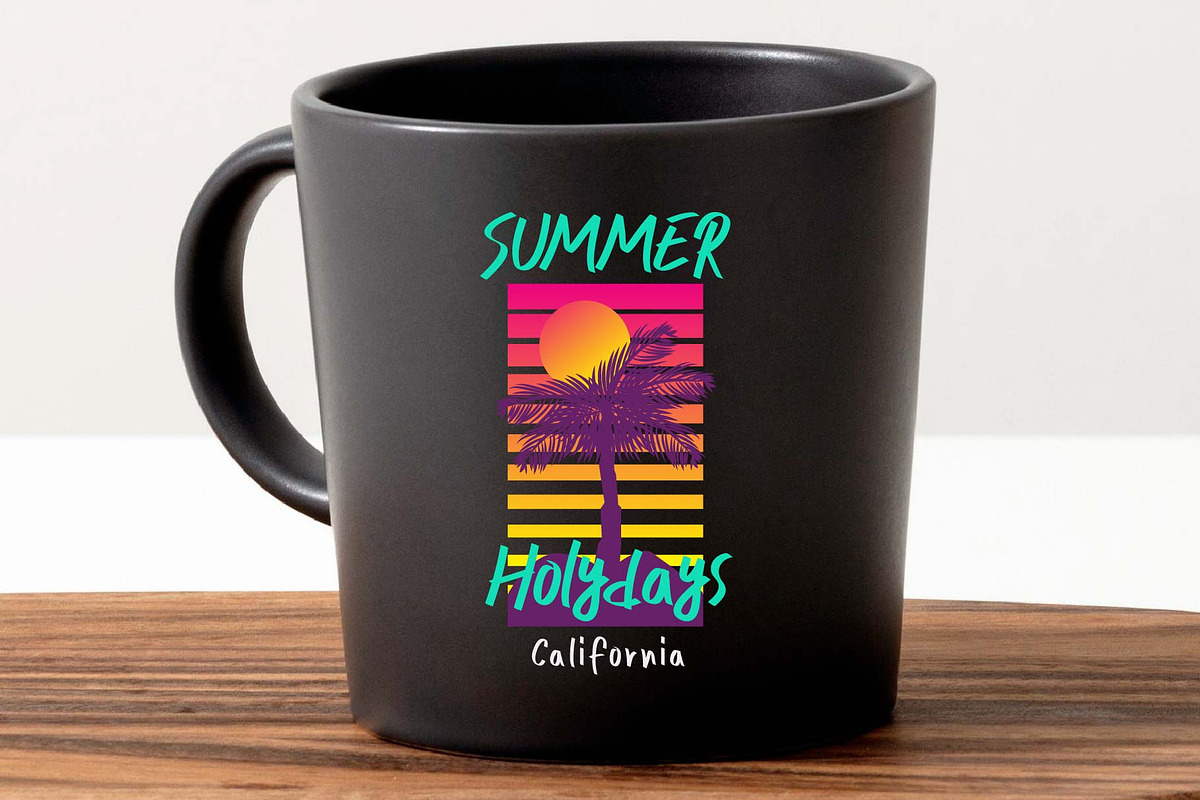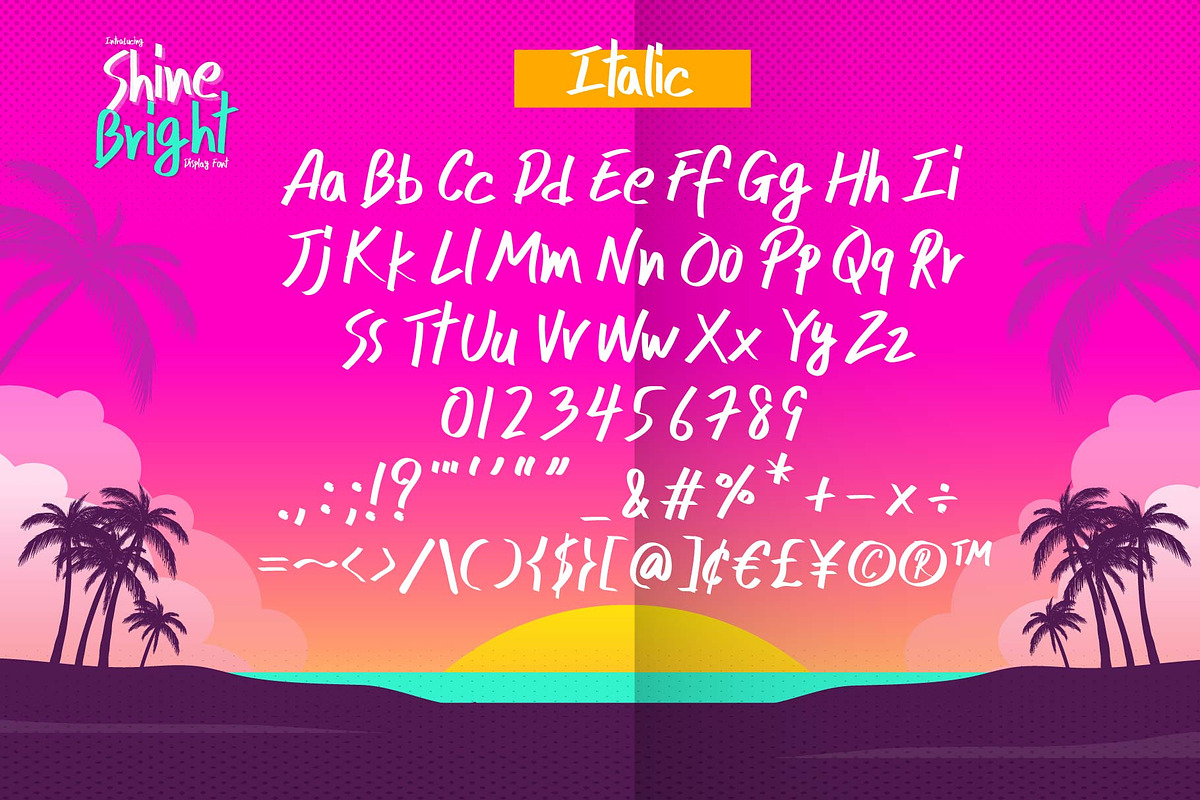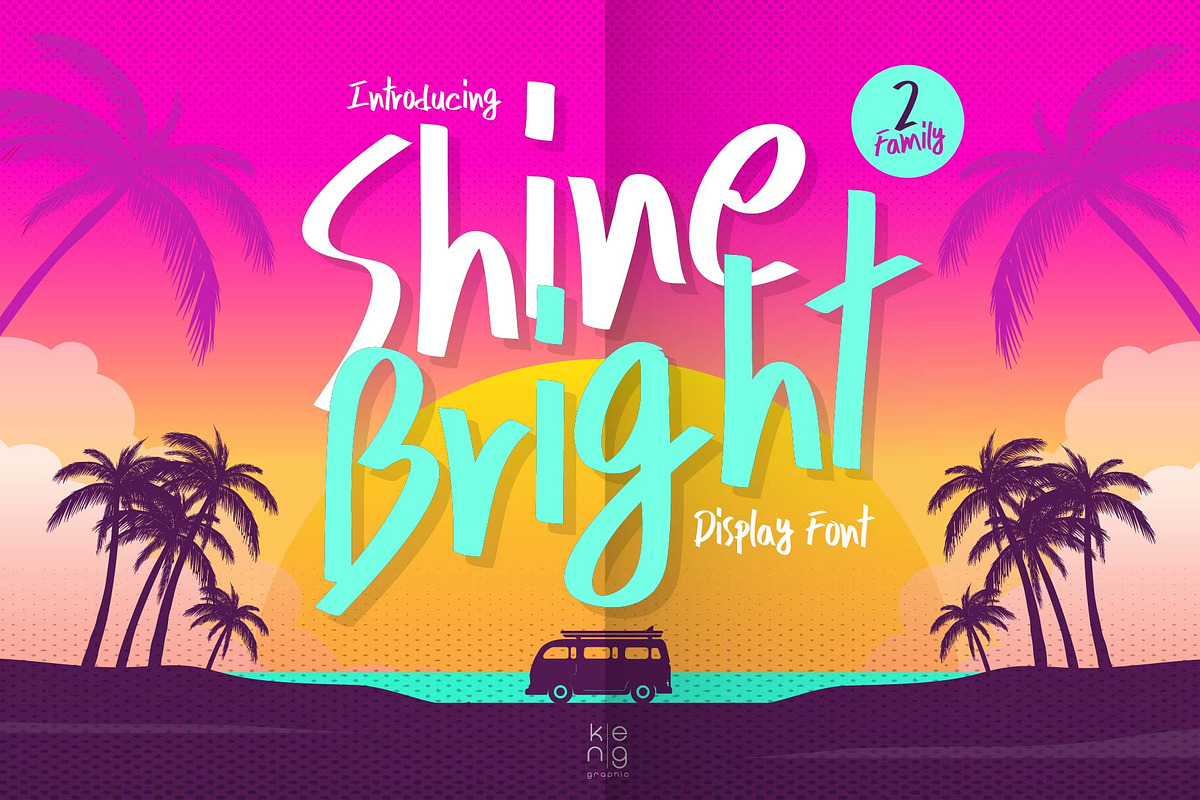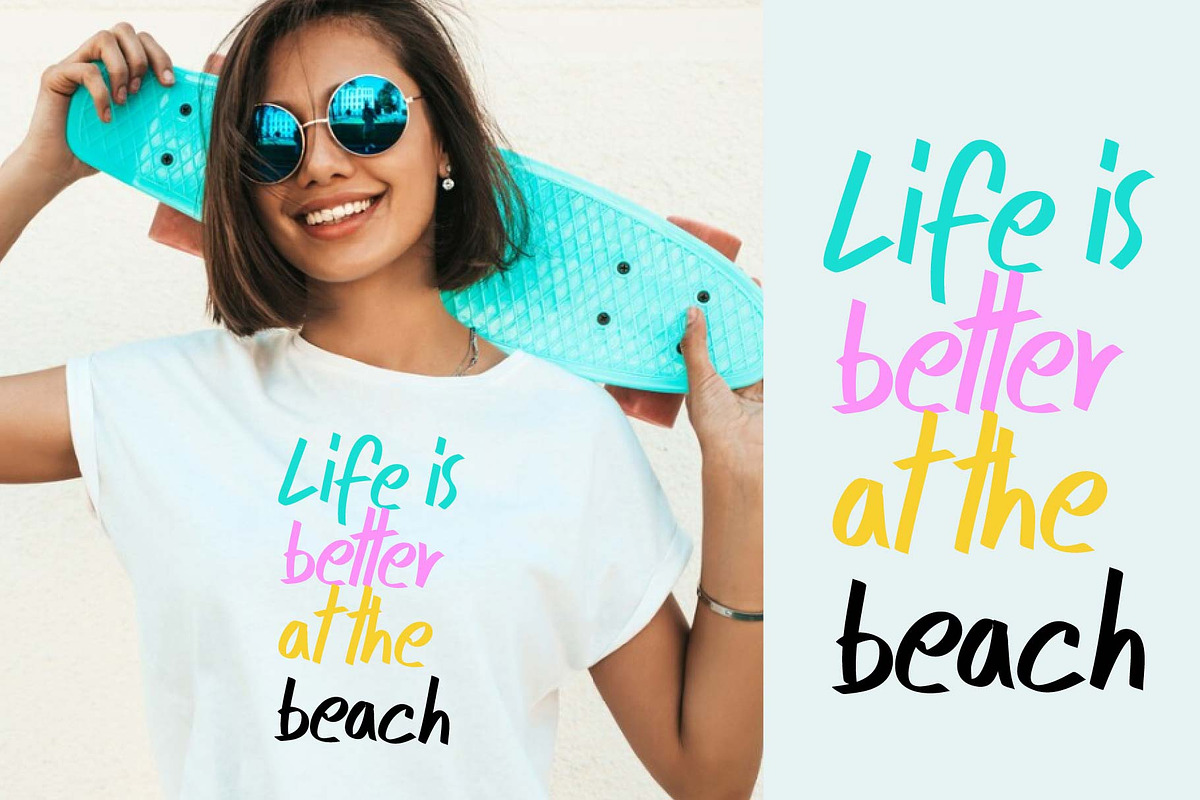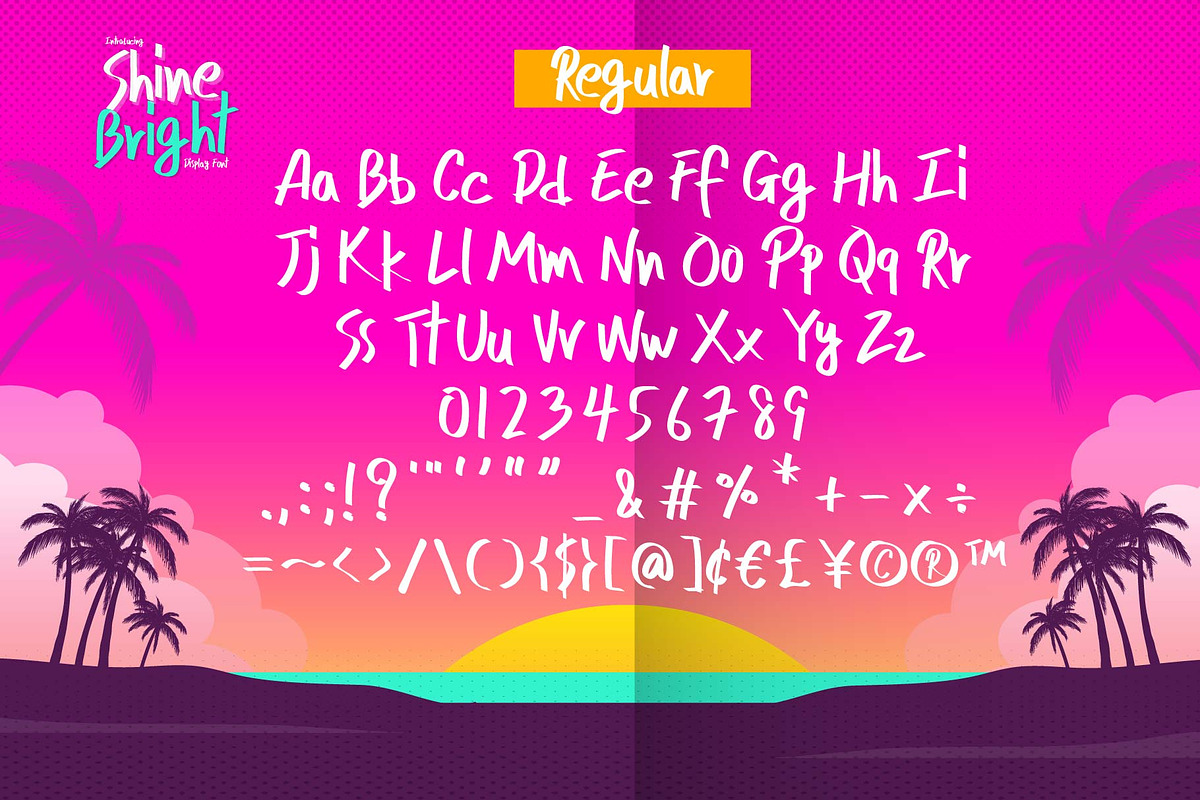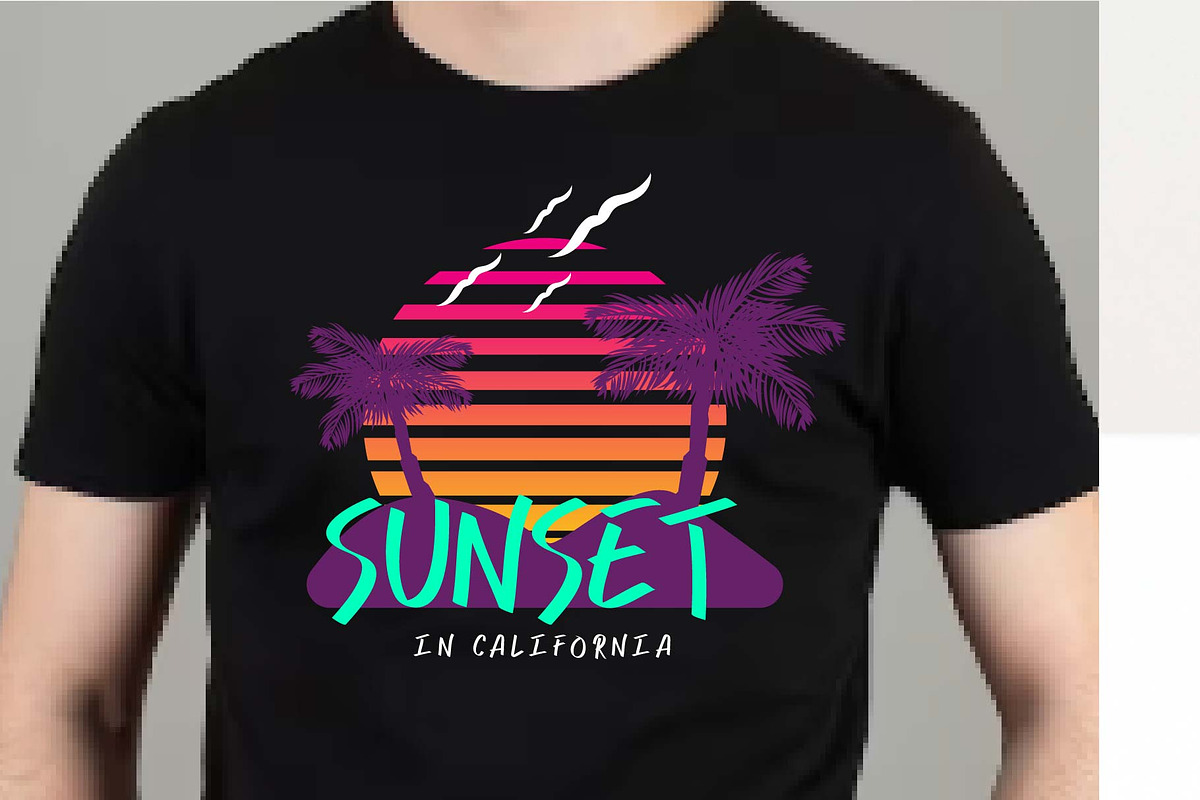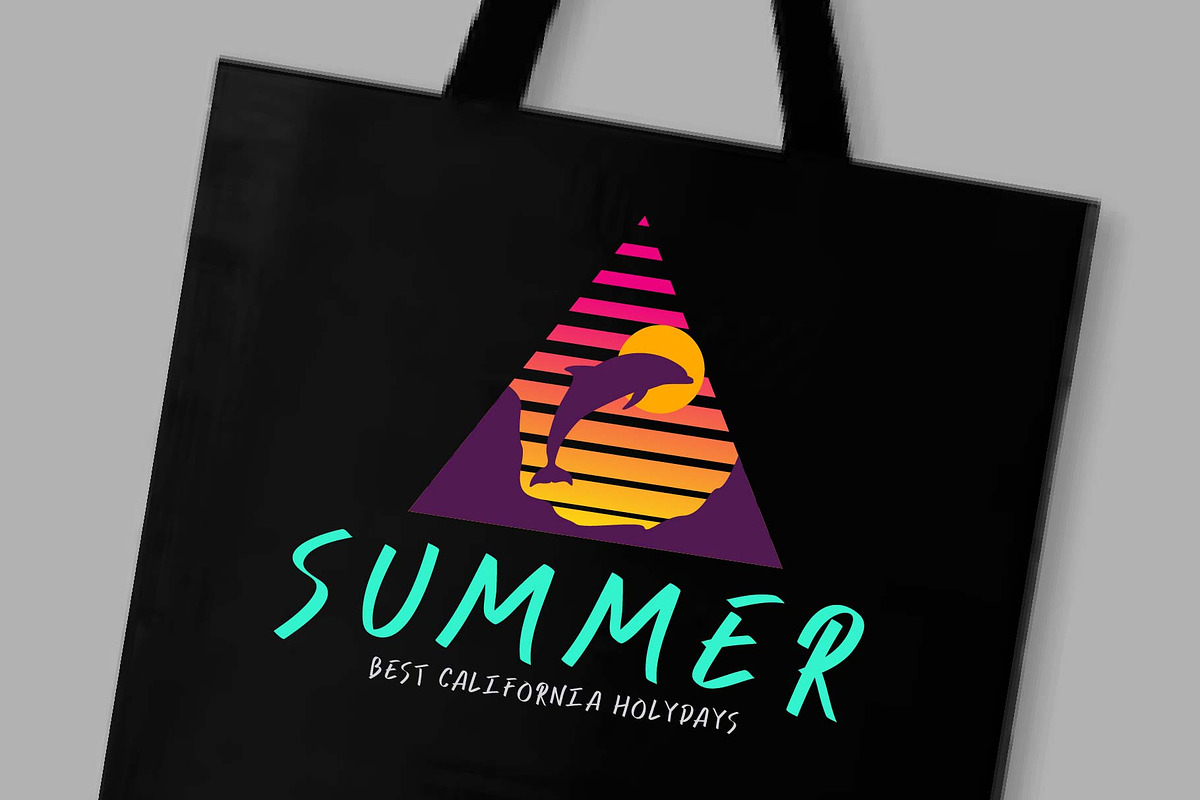
Shine Bright Font
Immerse yourself in the exceptional allure of the Shine Bright font. Conceptualized from the fusion of line freedom and scribbles from a flat-headed pen, this font teems with singular flair. It embodies a graceful fluidity, offering your design a soothing visual rhythm that sets it apart. With Shine Bright, your design's creative boundaries are pushed, enabling you to explore expansive horizons. You're sure to be wowed, leaving no room for dissatisfaction. This stylish and unique font creates a truly standout piece of art.